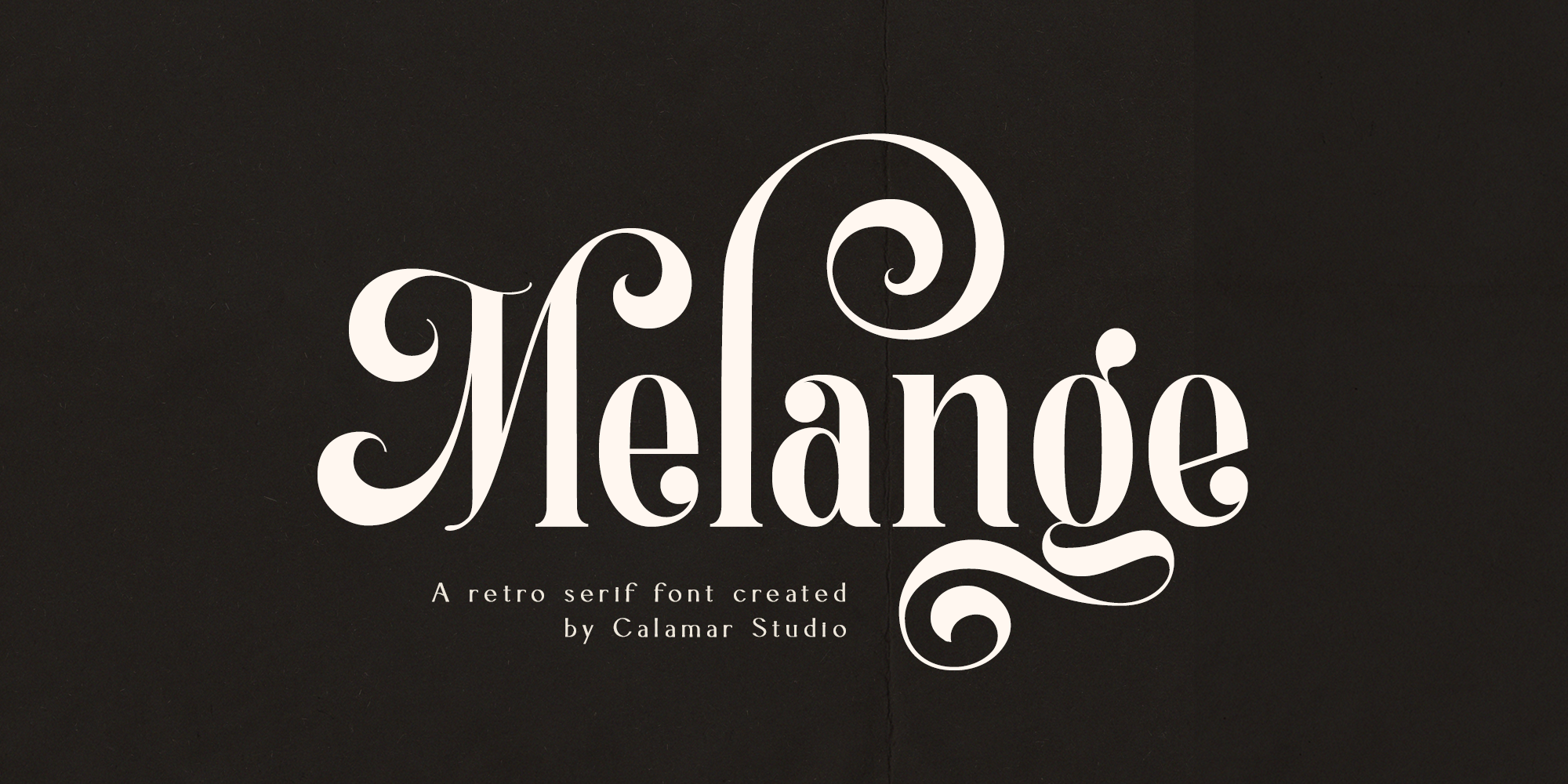
Melange Font is perfect for multicultural event promotions, international cuisine branding, cultural fusion restaurant menus, diverse community organization logos, global art exhibition materials, world music festival advertising, cosmopolitan magazine layouts, international travel promotions, cross-cultural wedding invitations, and harmonious brand identity systems. Its blended cultural character makes it ideal for projects requiring cultural diversity celebration and international sophistication.
What makes Melange Font exciting is its beautiful embodiment of cultural fusion and global harmony with diverse typographic influences and blended design elements that celebrate the richness of multicultural experiences and international collaboration. The font features harmonious proportions, culturally-inspired details, and versatile character construction that create inclusive atmosphere and global appeal. Its cosmopolitan personality brings unity and diversity to contemporary designs while maintaining the sophistication essential for international communications and multicultural presentations. The carefully crafted fusion elements ensure visual harmony while preserving the distinctive character that embodies the essence of cultural celebration and global unity excellence.
Melange Font comes in multiple harmonious variations including Light, Regular, Medium, Bold, and Display styles. Each family member maintains the distinctive multicultural character while offering comprehensive flexibility for international typography and diverse brand system development. The complete font family includes stylistic alternates, cultural symbols, and international punctuation marks that enhance the inclusive aesthetic and provide essential tools for multicultural communication excellence.
Whether you're developing international brands, multicultural organizations, or global communication projects, Melange Font Free Download provides the harmonious diversity needed to communicate with worldwide audiences who appreciate cultural fusion and international sophistication. The font's inclusive appeal resonates with global citizens, cultural enthusiasts, and diversity advocates seeking authentic multicultural credibility and cosmopolitan elegance. Its comprehensive character set includes international symbols and cultural marks, making it perfect for creating complete global brand systems and memorable multicultural storytelling across diverse international applications and culturally-inclusive design projects that celebrate human diversity and global harmony excellence.